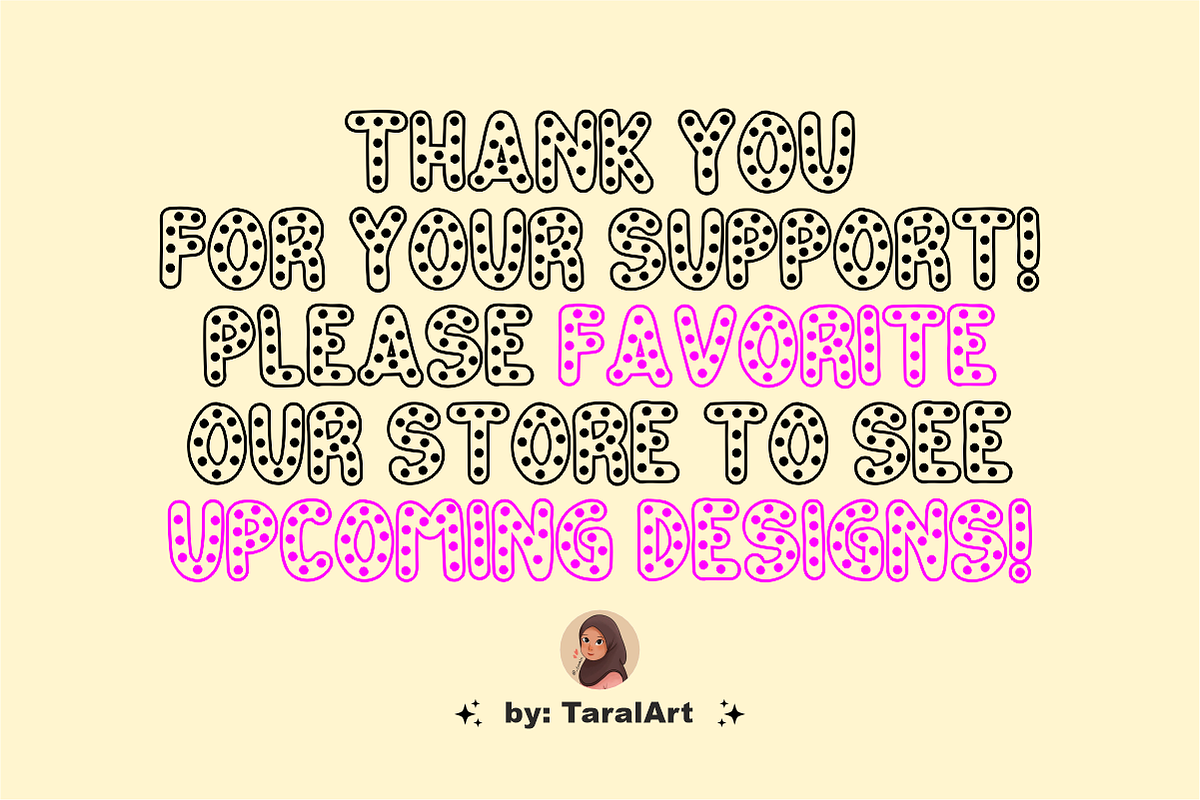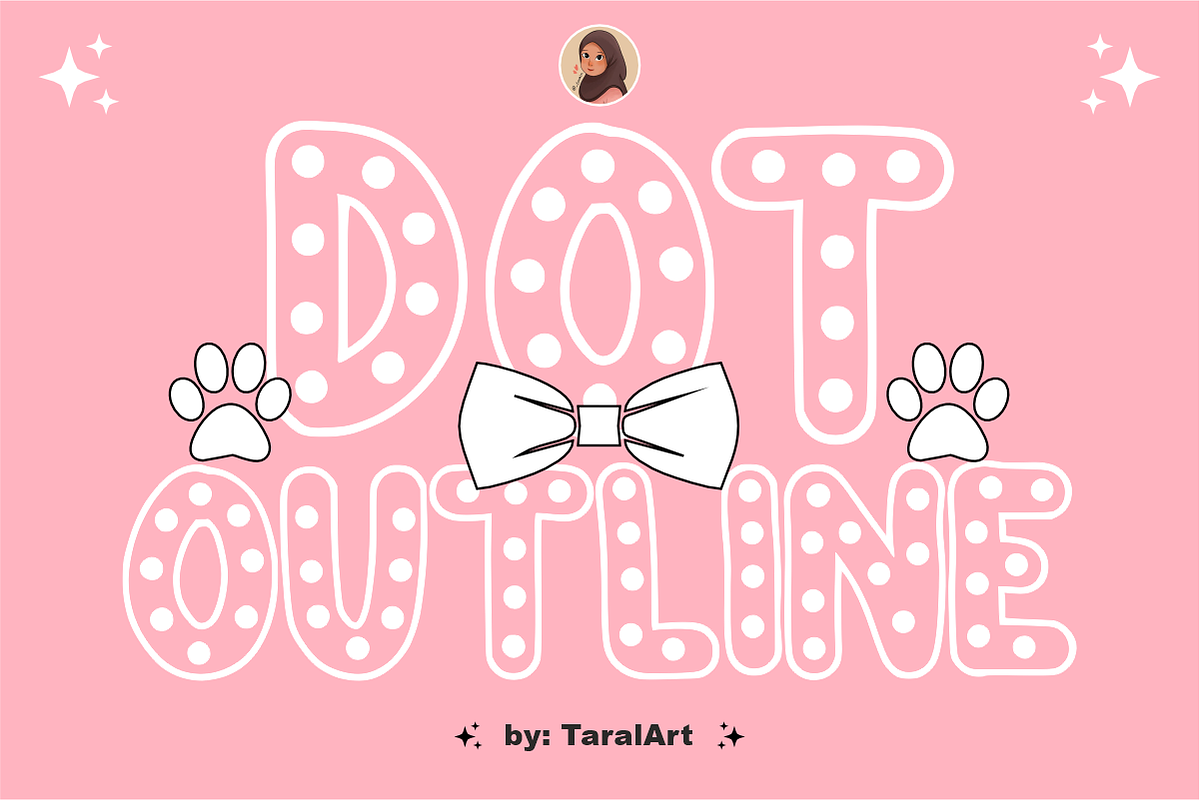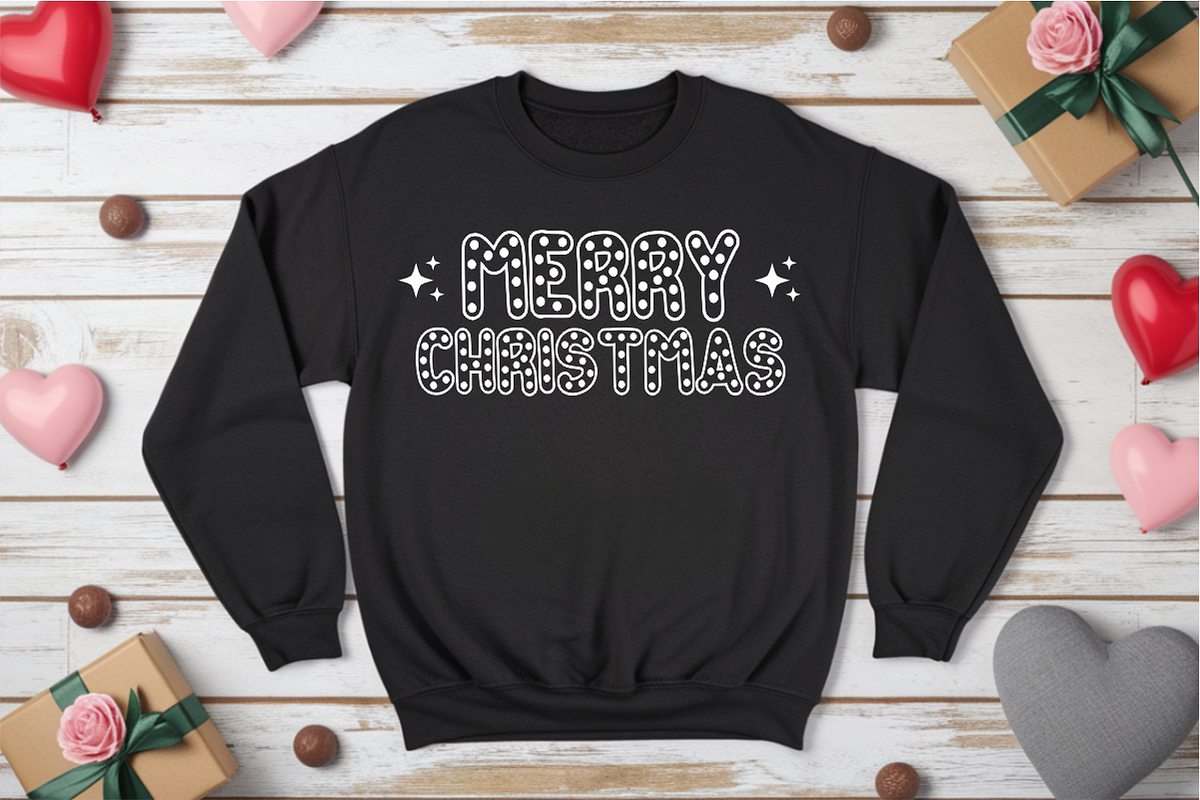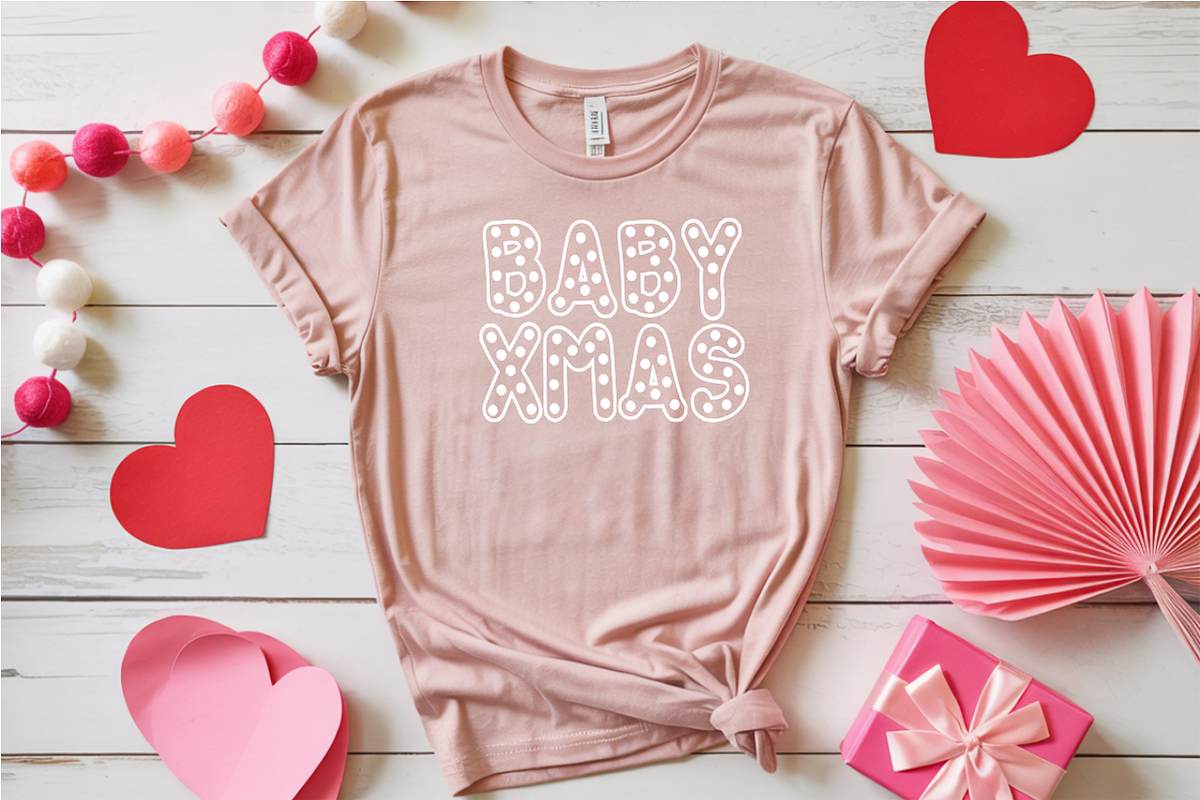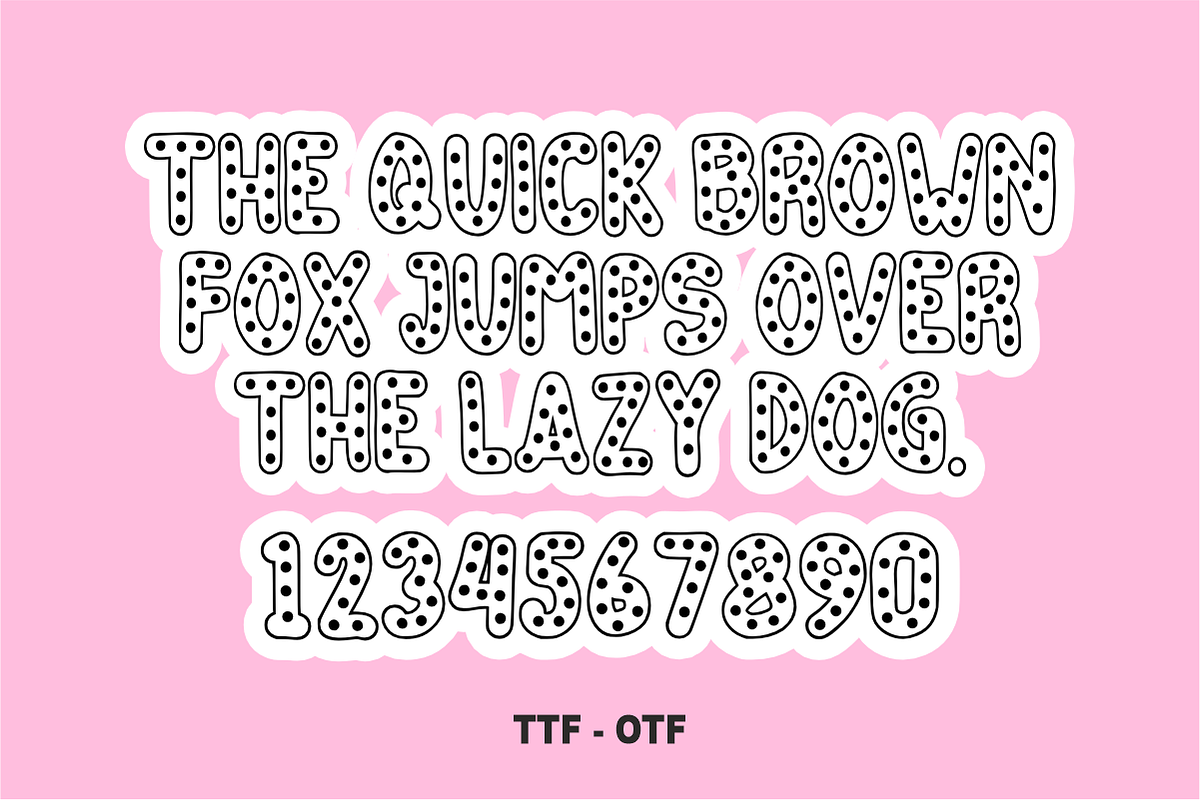
Dot Outline - Cute Polka Dot Font
Dot Outline is a playful, chunky display font featuring bold outlines filled with cheerful polka dot patterns. Perfectly suited for kids' crafts, school projects, and cute pet branding, this cartoon-style font adds an instant splash of joy to your headlines. Every character is cleanly vectorized to guarantee smooth, effortless cutting on machines like Cricut and Silhouette.
Uppercase Character Set
Numbers & Basic Punctuation
Ideal For:
Custom die-cut stickers, labels, and planner decals
Kids' apparel, baby onesies, and playful t-shirt prints
Classroom decorations, posters, and teacher resources
Birthday party invitations, cake toppers, and banners
Playful pet branding, toy packaging, and cartoon logos
Cricut, Silhouette, and DIY vinyl craft projects